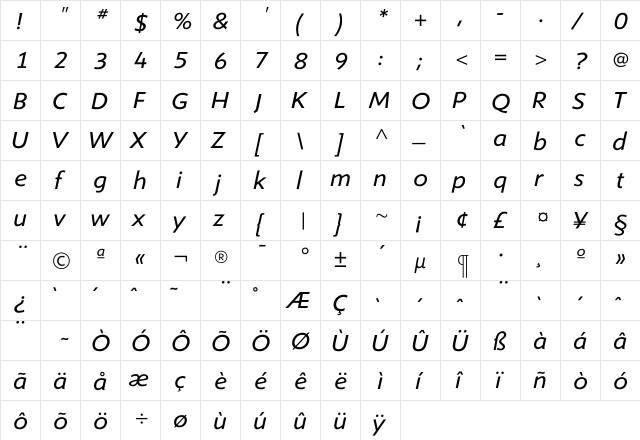
ShinnBookItalic Regular
Design Context for ShinnBookItalic Typeface
ShinnBookItalic takes a measured approach to typography — its balanced proportions and neutral character make it a reliable workhorse for both digital and print work. Its italic angle brings a sense of urgency and motion to the letterforms.
Pro Tip: Use ShinnBookItalic for emphasis, pull quotes, and subheadings where its slanted energy can add rhythm to the layout.